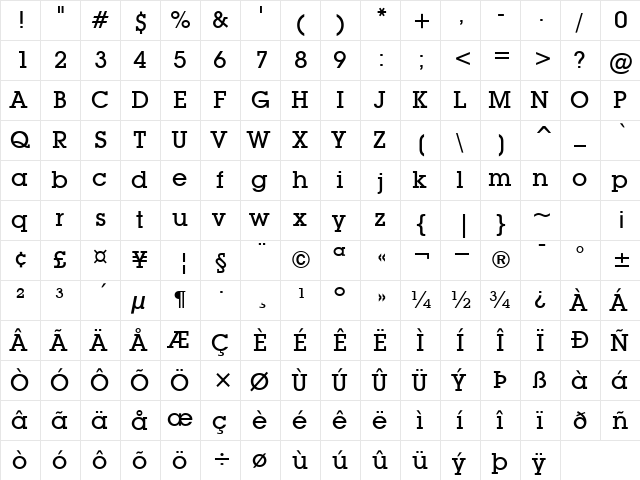
ITCLubalinGraph-Medium Medium
Design Context for ITCLubalinGraph-Medium Typeface
ITCLubalinGraph-Medium takes a measured approach to typography — its balanced proportions and neutral character make it a reliable workhorse for both digital and print work.